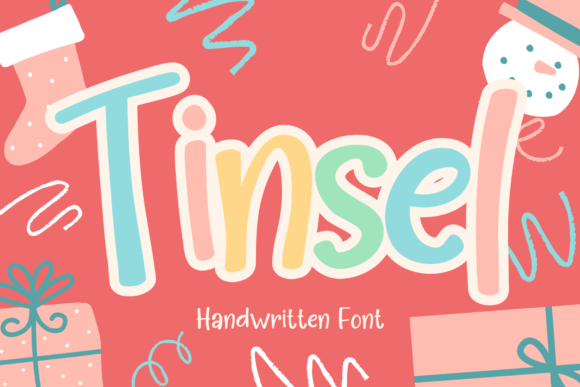
Introducing Tinsel Font, the ultimate choice for unleashing your creativity and adding a touch of charm to your designs! Crafted with love by Brown Cupple Fonts, this handwritten font exudes a captivating playfulness and authenticity that will leave you spellbound.
Are you tired of mundane and generic fonts that fail to make a lasting impression? Look no further! Tinsel Font is here to infuse your projects with an irresistible allure that will captivate your audience. Whether you're working on blog posts, logos, branding, ads, invitations, greeting cards, planners, photo albums, decorations, or any other creative endeavor, Tinsel Font is the perfect companion to elevate your work to new heights.
With its exquisite handwritten style, Tinsel Font breathes life into every letter, creating a seamless flow that evokes emotions and sets the stage for unforgettable storytelling. Its carefully crafted curves and strokes add a personal touch, making each word feel like a work of art. Imagine the impact and engagement your audience will experience when they come across your designs adorned with this exquisite font.
But Tinsel Font is not just about visual appeal. It is a powerhouse of versatility, allowing you to explore endless possibilities in your design journey. Whether you're aiming for a whimsical and romantic aesthetic or a bold and contemporary vibe, Tinsel Font adapts effortlessly to your creative vision. It effortlessly conveys emotions, whether it's joy, nostalgia, excitement, or elegance, making it a must-have tool for every designer, artist, or content creator.
But don't just take our word for it. Let the results speak for themselves! Add Tinsel Font to your collection and witness the transformation it brings to your projects. Watch as your designs come to life, leaving a lasting impression on your audience and setting you apart from the crowd. Tinsel Font is not just a font; it's a journey of self-expression that will leave an indelible mark on your creative endeavors.
So why wait? Take the leap and unlock the endless possibilities that Tinsel Font has to offer. Join the league of visionary designers who understand the power of captivating typography. With Tinsel Font, your imagination knows no bounds, and your designs will shine brighter than ever before. Don't settle for ordinary when you can embrace extraordinary. Download Tinsel Font today and embark on a creative adventure like no other.